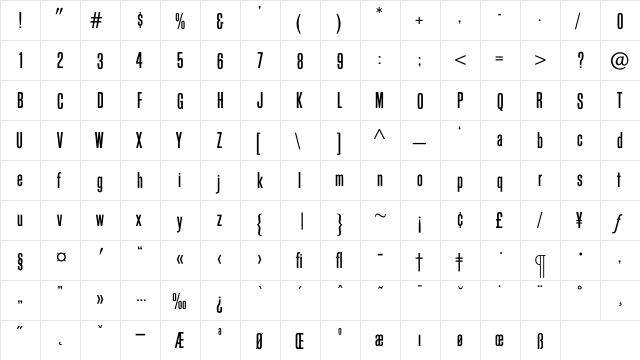
BlockGothicMediumExtraCond Regular Font Preview
Design Context for BlockGothicMediumExtraCond Typeface
BlockGothicMediumExtraCond takes a clean, functional approach — its unadorned letterforms prioritise legibility and work reliably across screen and print environments. The condensed width makes it efficient for tight spaces without sacrificing legibility.
Font Pairing: Works well alongside a characterful serif or display font that can carry the expressive load while BlockGothicMediumExtraCond handles the functional copy.
Pro Tip: Use BlockGothicMediumExtraCond tightly set in headlines and banners — its condensed proportions make it ideal for maximum impact in minimum horizontal space.